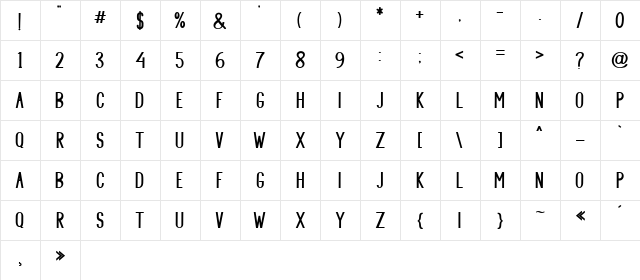
SHOOTING Regular
Design Context for SHOOTING Typeface
SHOOTING offers clean, dependable letterforms without strong stylistic allegiance, making it a practical choice for designers who need flexibility.